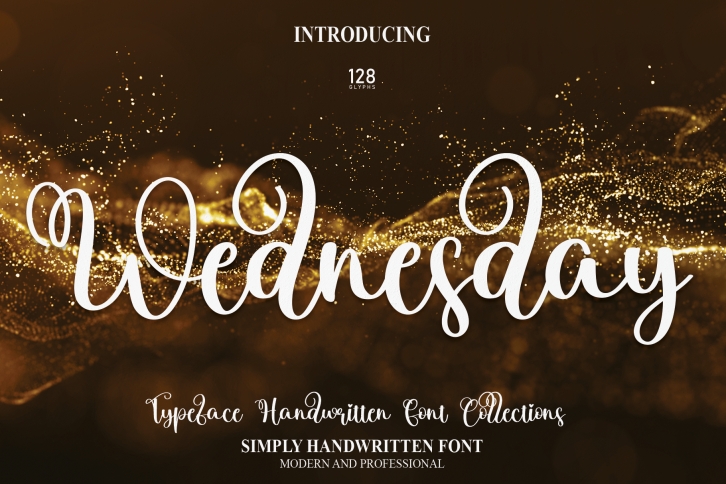
Wednesday is a sweet and subtle handwritten font that is crafted with great care for maximum results. It will add elegance and class to any of your design projects.